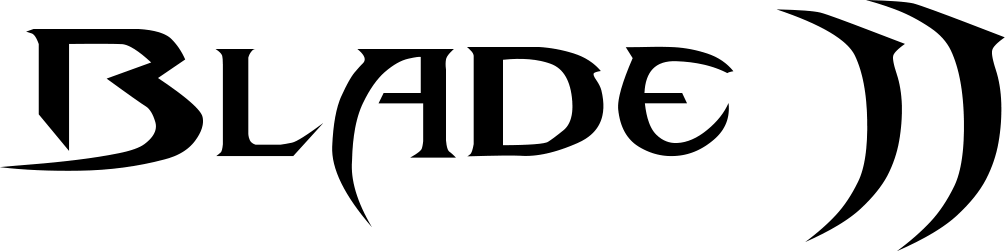
Blade 2 Font
Sometimes using a catchy font like Blade 2 can enhance your website and increase the efficiency of your content. Blade 2 is a Gothic font that does not support lowercase letters, punctuation, and numbers. This font does not have high readability but can be suitable for designing some logos. By using this masculine tattoo font, you can convey a sense of intimacy to the audience.